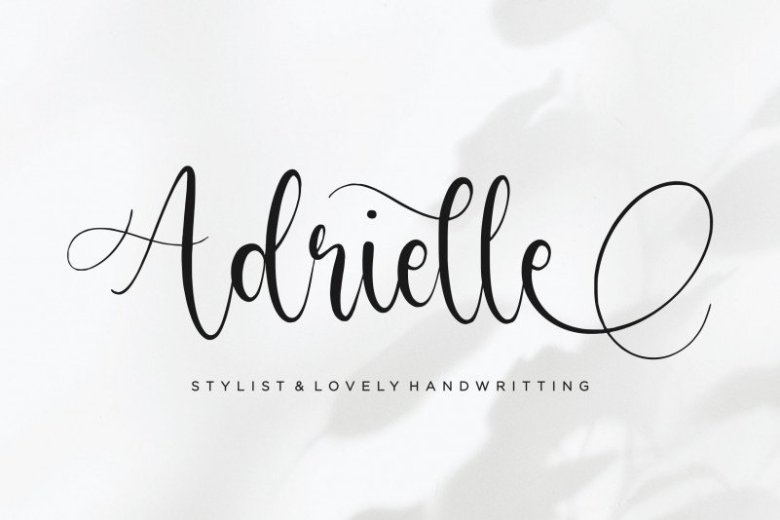
Adrielle Font
Adrielle Handwritting Font
Adrielle Font is a high quality  Handwritten font that is designed by balpirick and is available for free download and personal use. The free version provides all uppercase and lowercase letters and a few special characters too.